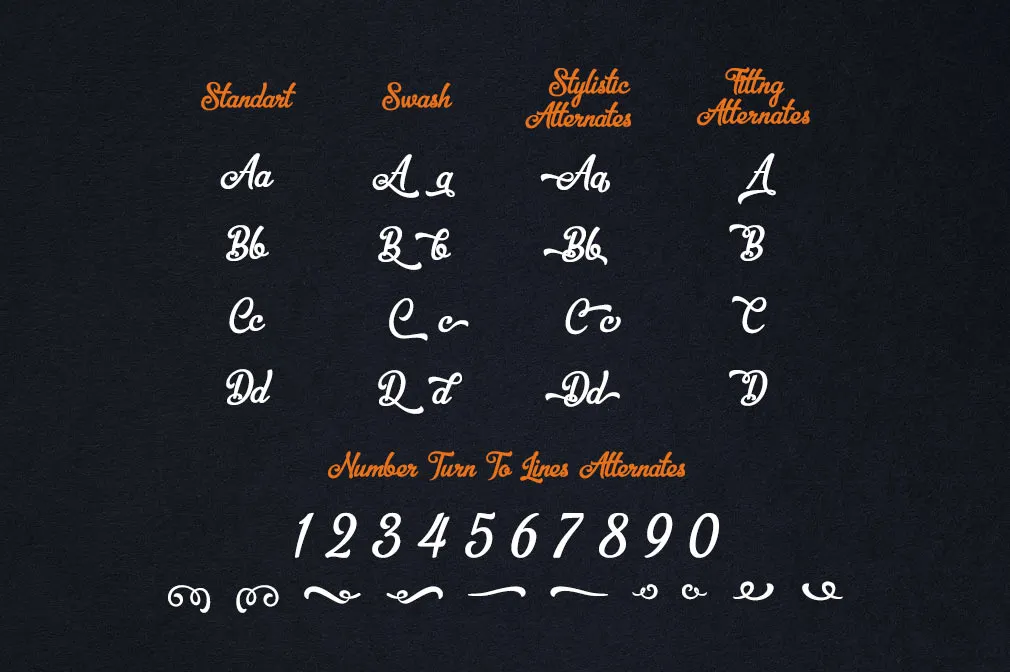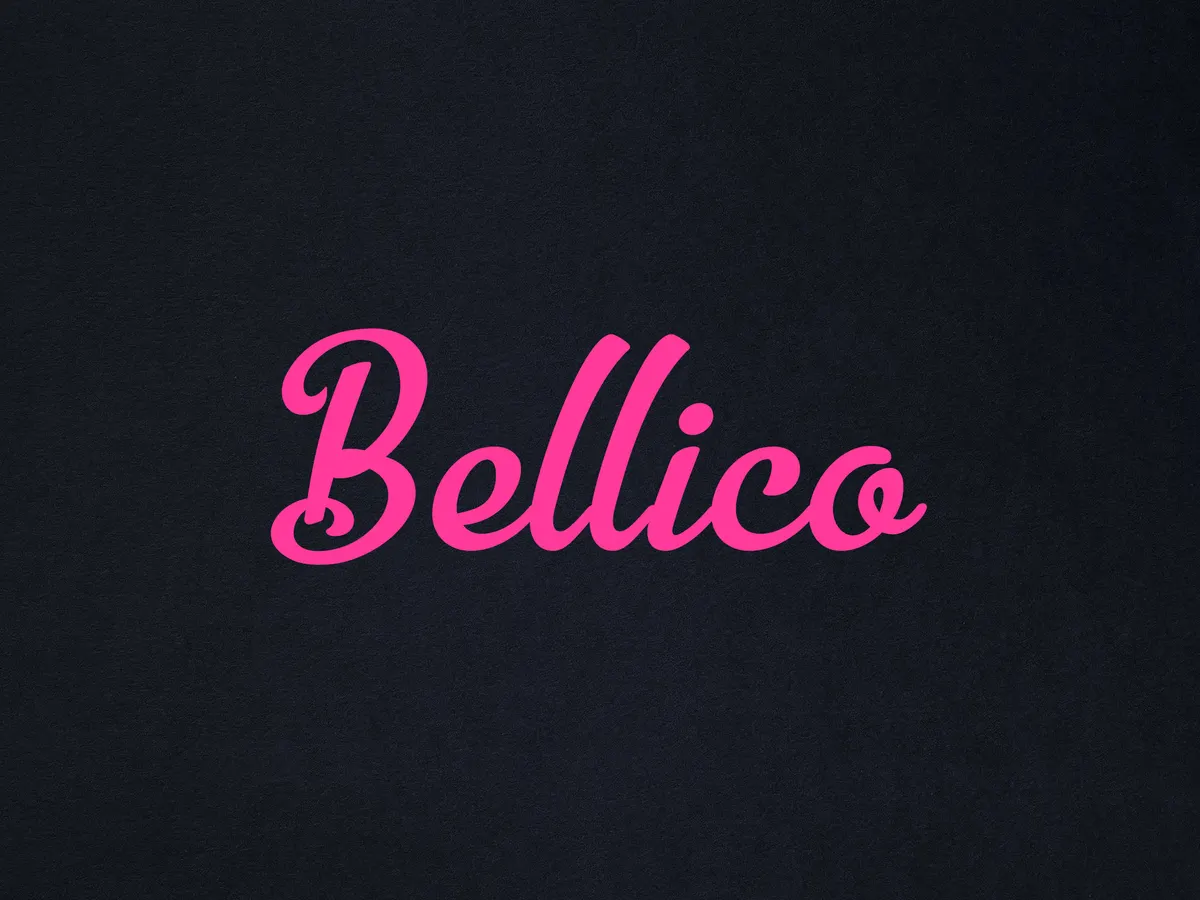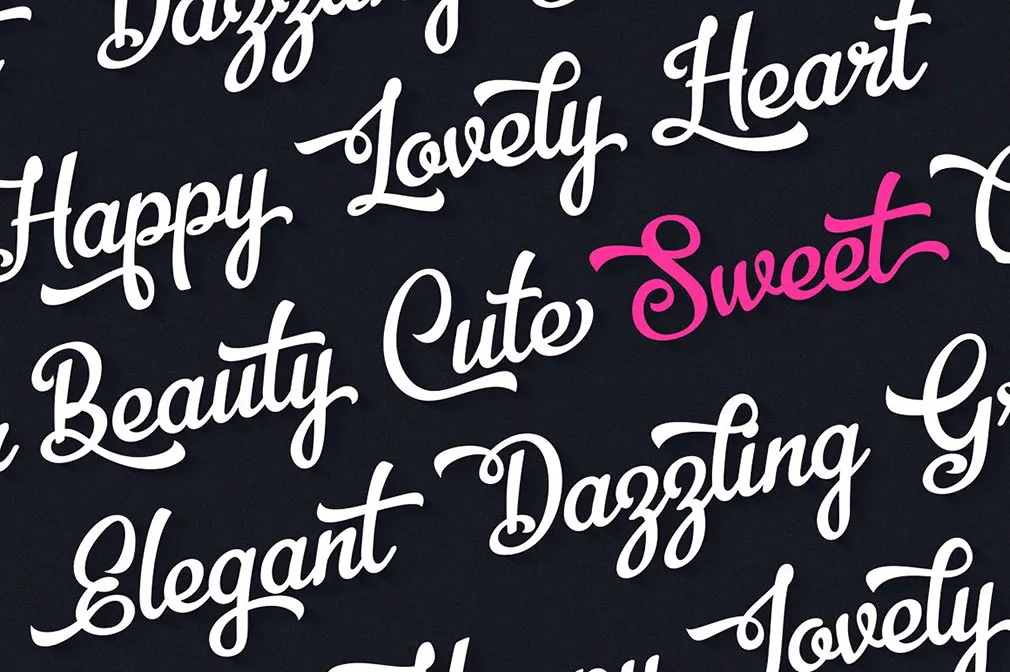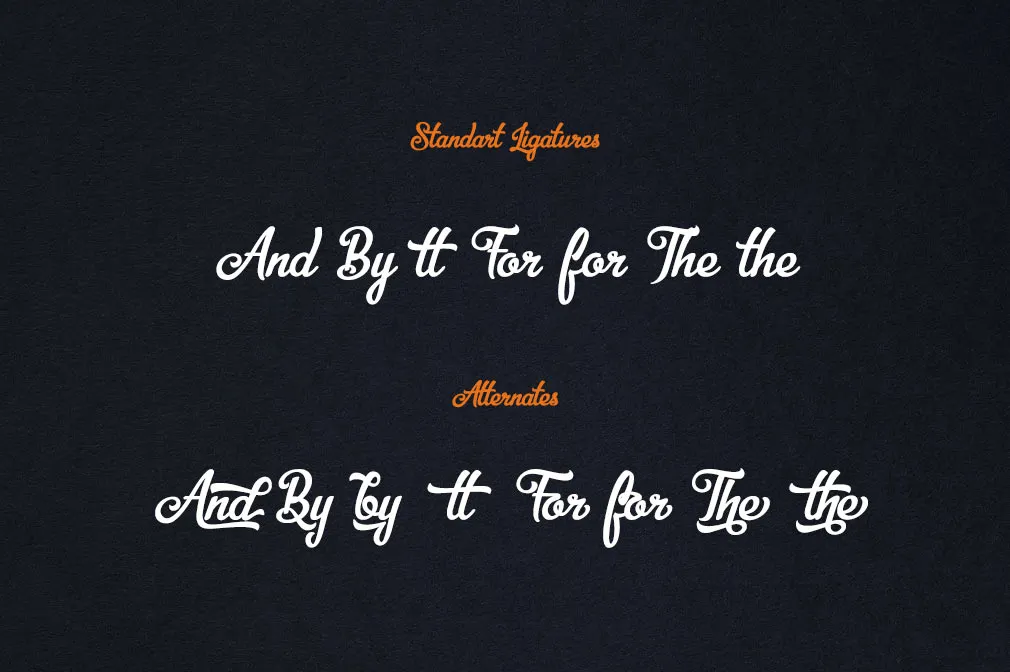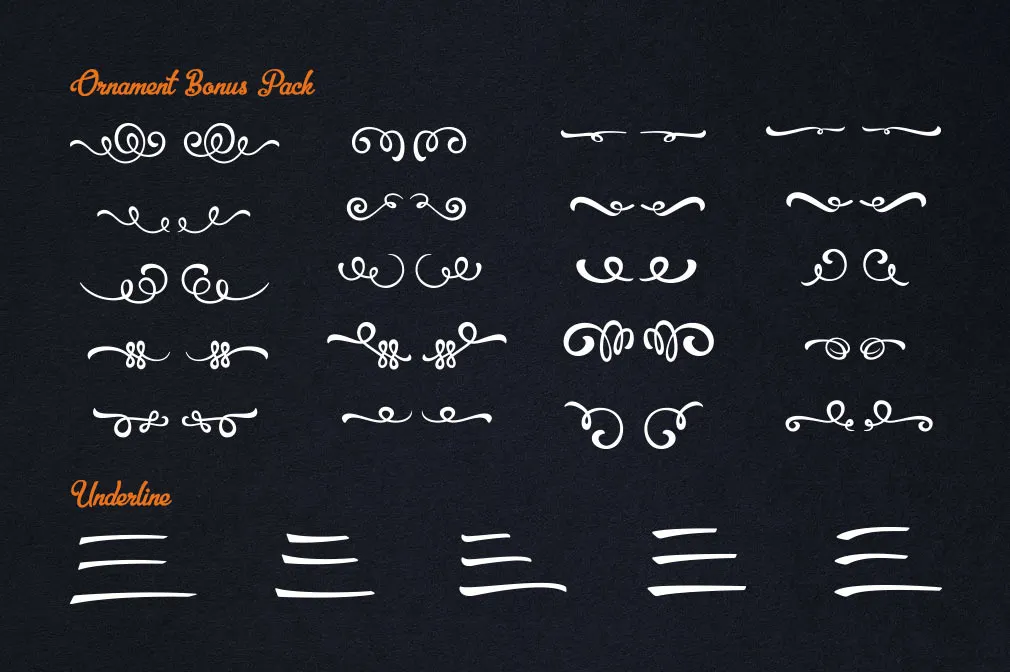
Bellico Typeface + Bonus Vectors
Today we're proud to offer you Bellico, a beautiful script typeface with a wide range of alternates available through OpenType features for any kinds of creative projects.
Bellico is rich with fantastic curves and lines, turning it into a harmonic composition of typographic freelance writing. And dont forget about bonus underlines and ornament in Ai and EPS format. The great fit for your headlines, logos, posters and many more!